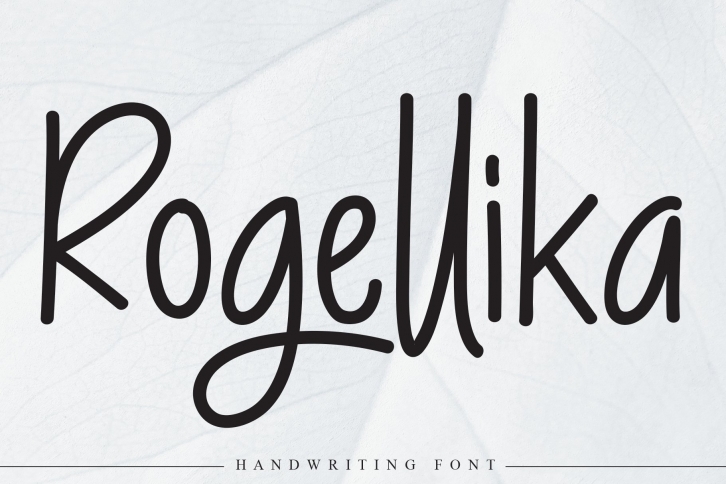
Rogellika is a beautiful font that was designed by creativewhitee. It's a great choice for designers and creatives who need such a font. It was released on November 18, 2020 and the file size is 21.52 MB. Rogellika may give a more youthful, expressive and casual look to your project. It is a very beautiful, refined, elegant, and high-quality font.